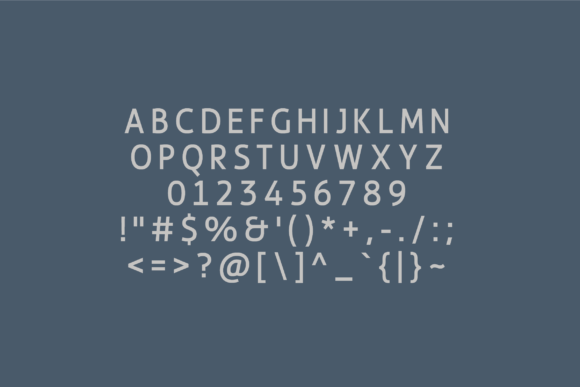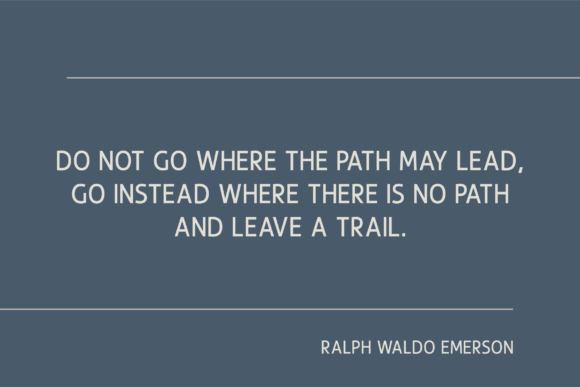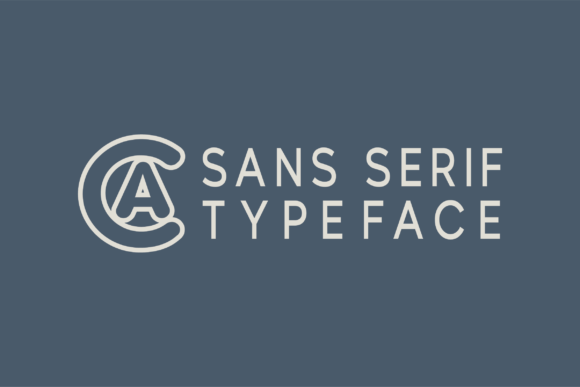
Unveiling Darkridge: The Elegantly Modern Sans Serif Typeface
In the realm of typography, a new star has emerged, captivating the attention of designers and crafters alike. Meet Darkridge, an elegantly modern sans serif typeface that is redefining the way we approach visual communication. With its sophisticated blend of uppercase alphabets, numerals, and an assortment of punctuation and symbols, Darkridge embodies a versatile charm that is hard to resist.
Aesthetic Appeal and Versatility
Darkridge’s unique design makes it an ideal choice for a wide range of applications. Whether you’re looking to create a stunning logo, a beautiful wedding invitation, or a compelling advertising campaign, this sans serif typeface is up to the task. Its clean lines, precise curves, and balanced proportions make it perfect for print media, magazines, and digital platforms. With Darkridge, you can effortlessly add a touch of class and chic sophistication to any text, elevating your content to new heights.
Crafted with Precision and Elegance
Darkridge’s design is a testament to the power of typographic craftsmanship. Each letter, numeral, and symbol has been carefully crafted to ensure that the typeface exudes a sense of refinement and poise. The uppercase alphabets are strong and confident, while the numerals from 0-9 provide a sense of continuity and flow. The assortment of punctuation and symbols adds a touch of versatility, making Darkridge suitable for a wide range of creative projects.
One of the most exciting aspects of Darkridge is its endless creative possibilities. Whether you’re a designer looking to create a stunning visual identity or a crafter seeking to add a personal touch to your projects, this typeface is sure to inspire. Use it to create eye-catching logos, elegant wedding invitations, or compelling quotes that grab attention. With Darkridge, you can experiment with different layouts, colors, and textures to create truly unique and captivating designs.
Why Choose Darkridge?
So, why choose Darkridge over other typefaces? Here are just a few compelling reasons:
- Versatility: Darkridge is suitable for a wide range of applications, from logos and wedding invites to quotes, advertising creatives, print media, and magazines.
- Elegance: Darkridge’s sophisticated design adds a touch of class and chic sophistication to any text.
- Readability: The typeface’s clean lines and precise curves ensure excellent readability, even at small font sizes.
- Uniqueness: Darkridge’s unique design sets it apart from other sans serif typefaces, making it perfect for designers and crafters looking to create something truly special.
Tips for Using Darkridge
To get the most out of Darkridge, here are a few tips to keep in mind:
- Experiment with font sizes: Darkridge looks great at a range of font sizes, from large headings to smaller body text.
- Play with color: Darkridge’s elegant design pairs well with a range of colors, from bold and bright to subtle and muted.
- Mix and match: Try pairing Darkridge with other typefaces to create a unique and captivating visual identity.
In conclusion, Darkridge is a game-changing sans serif typeface that is sure to captivate designers and crafters alike. With its sophisticated blend of uppercase alphabets, numerals, and an assortment of punctuation and symbols, Darkridge embodies a versatile charm that is hard to resist. Whether you’re looking to create a stunning logo, a beautiful wedding invitation, or a compelling advertising campaign, Darkridge is the perfect choice. So why wait? Unveil the power of Darkridge today and take your designs to new heights.